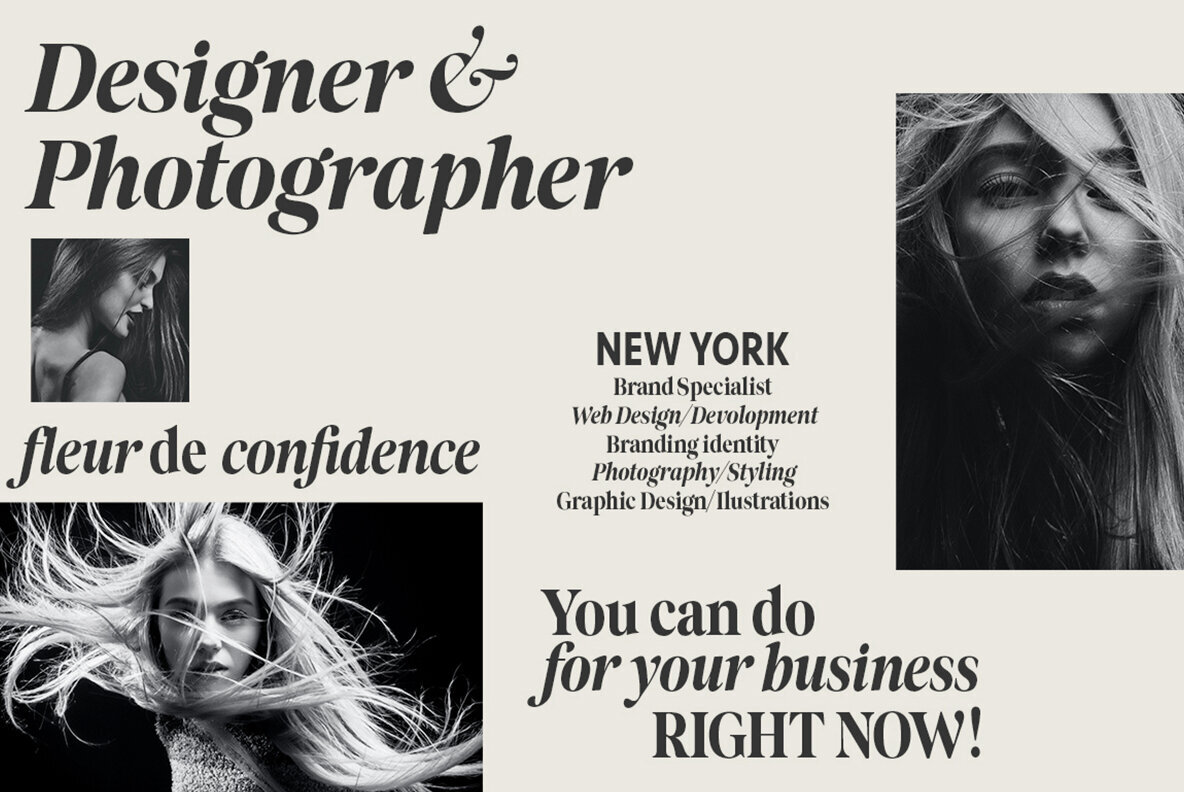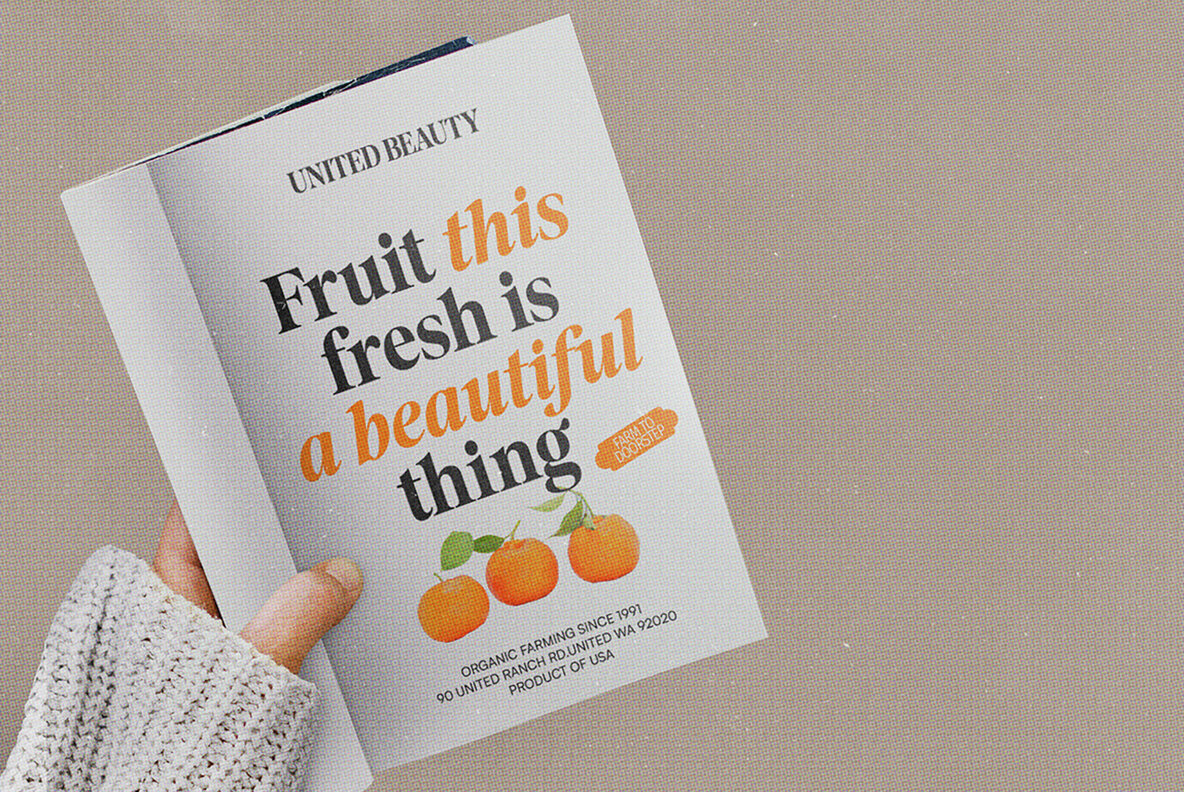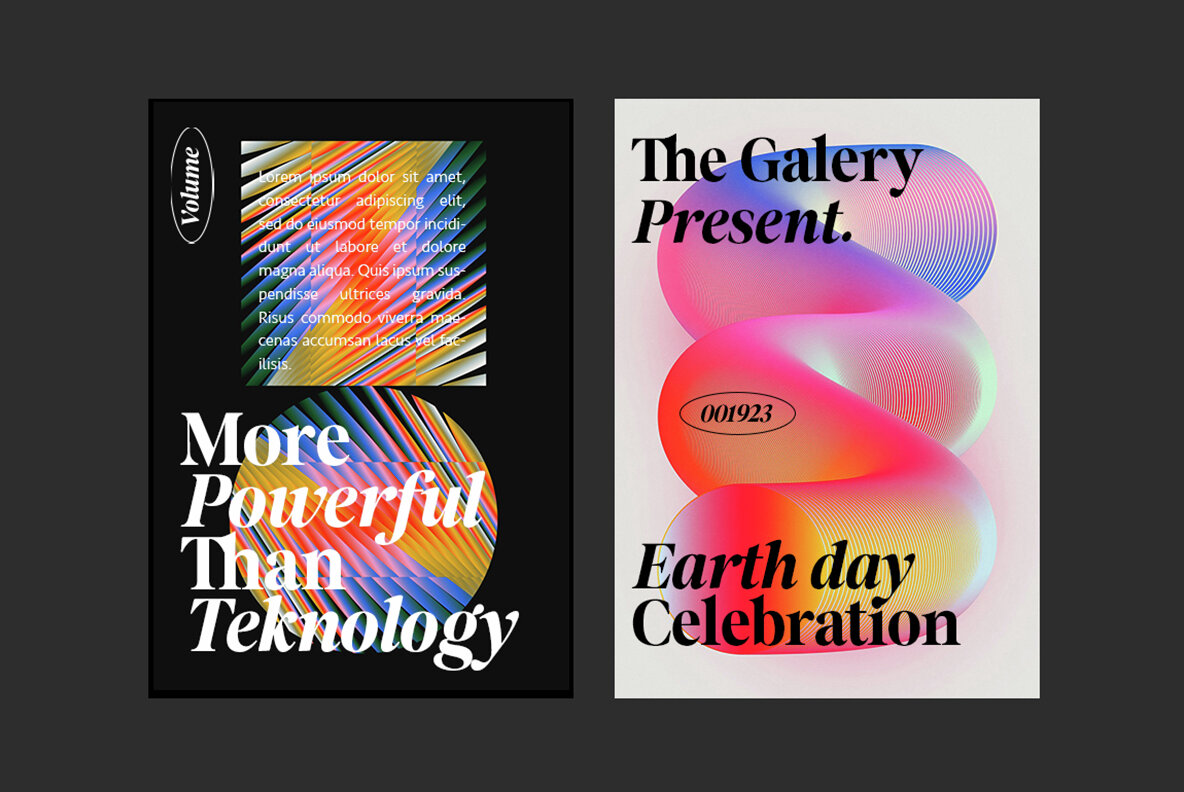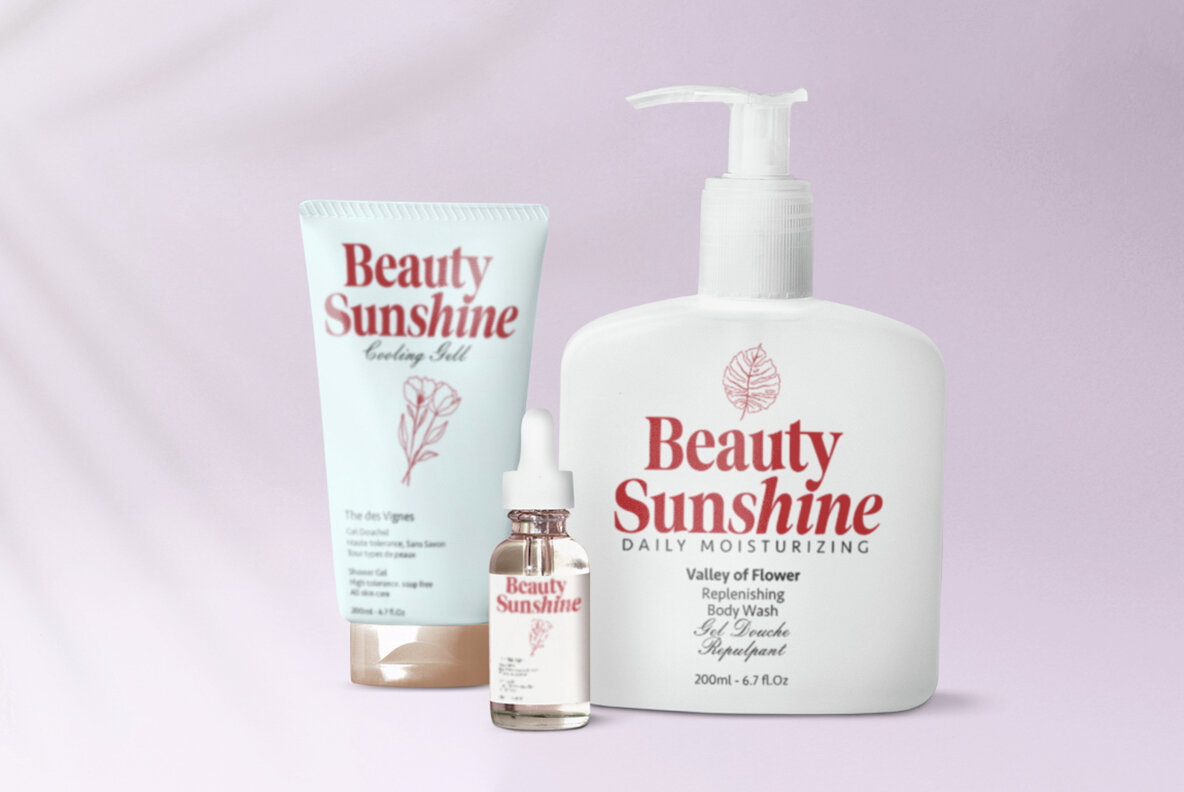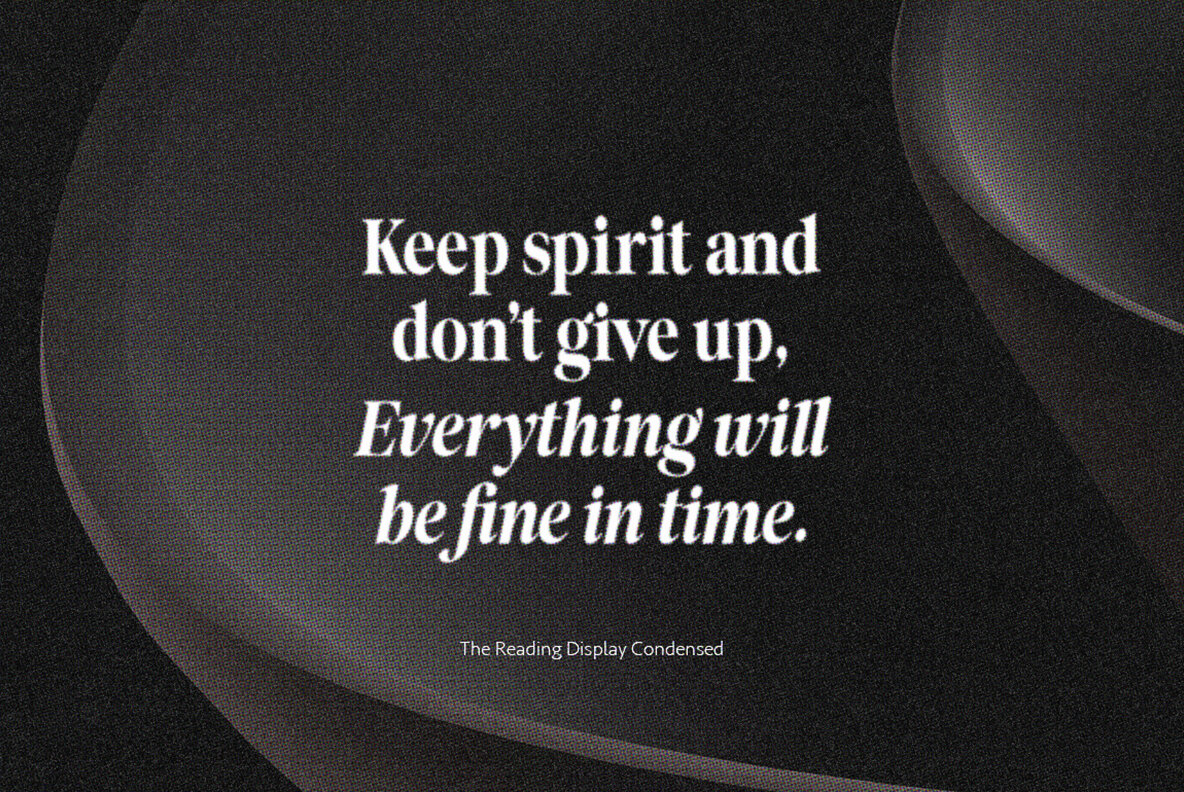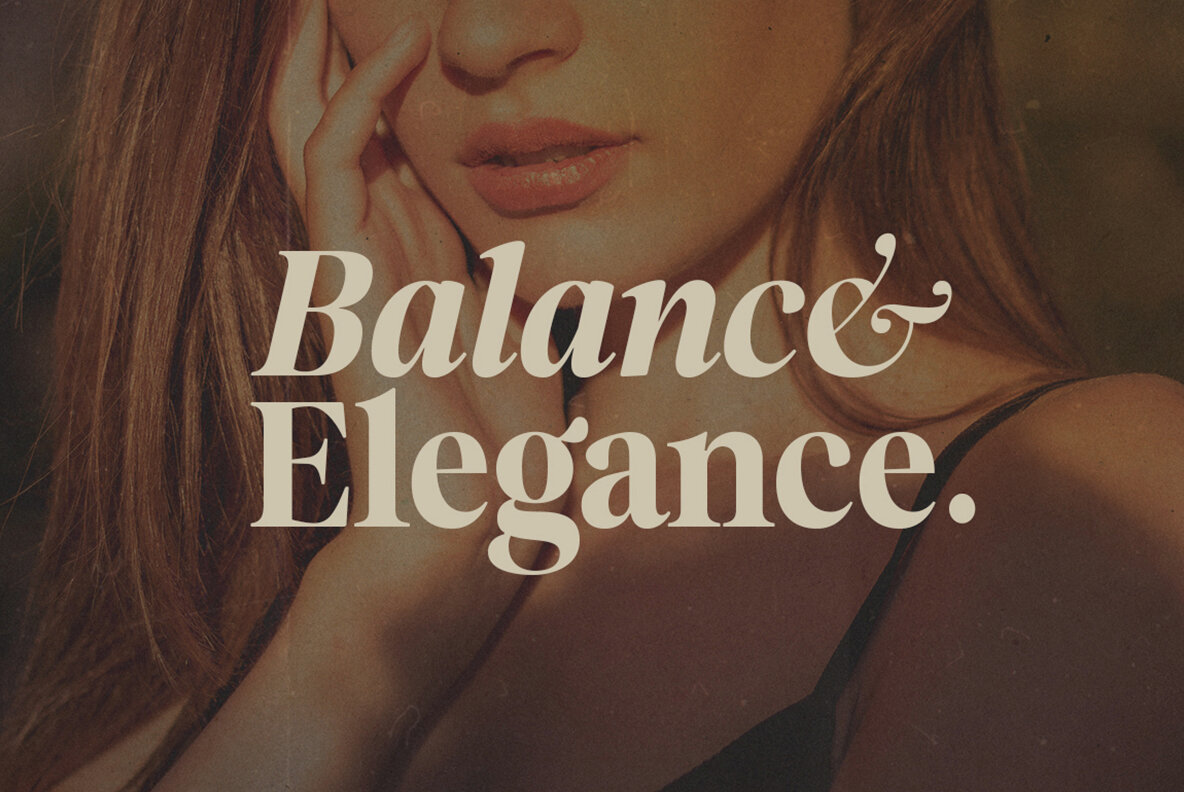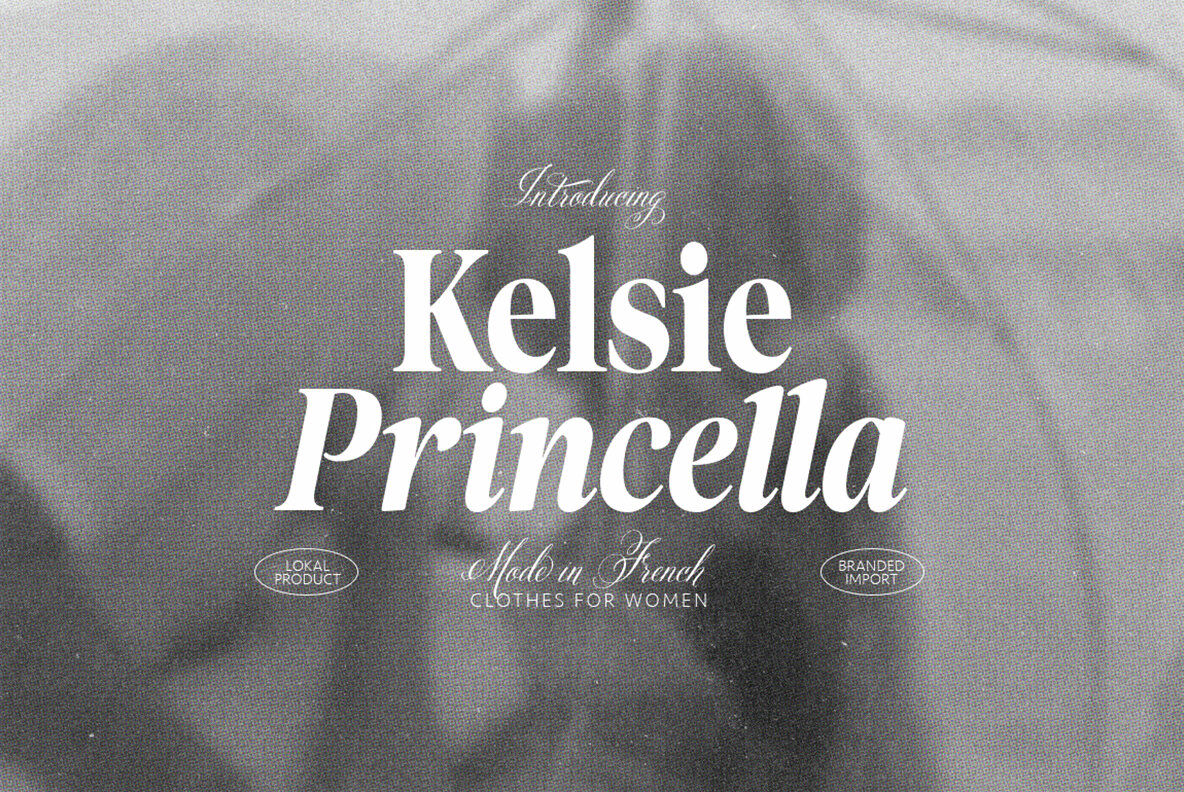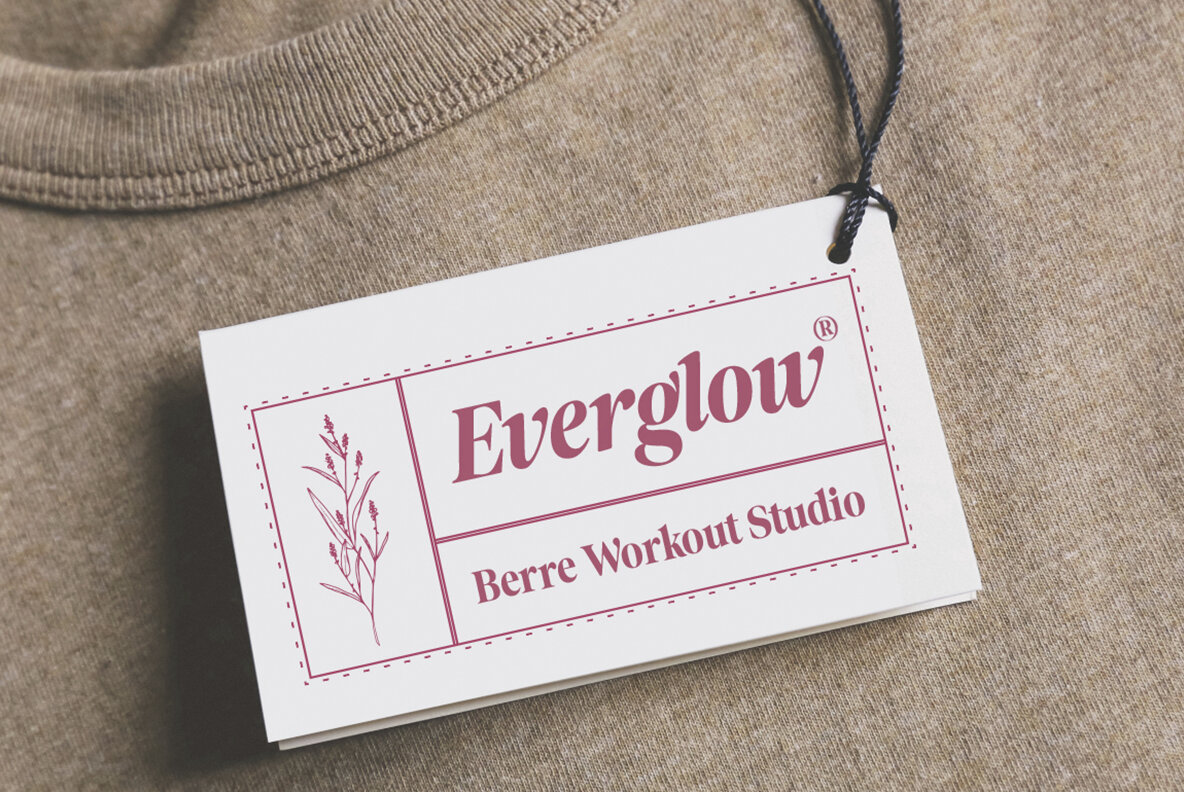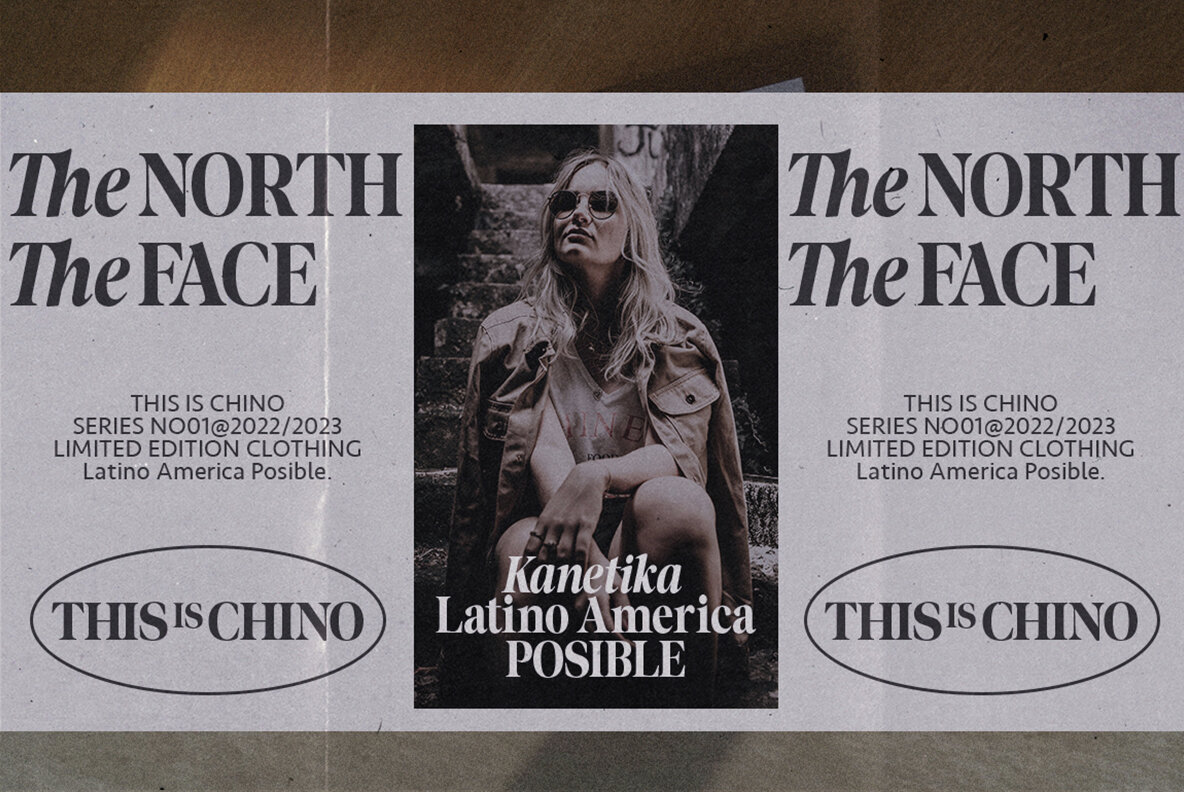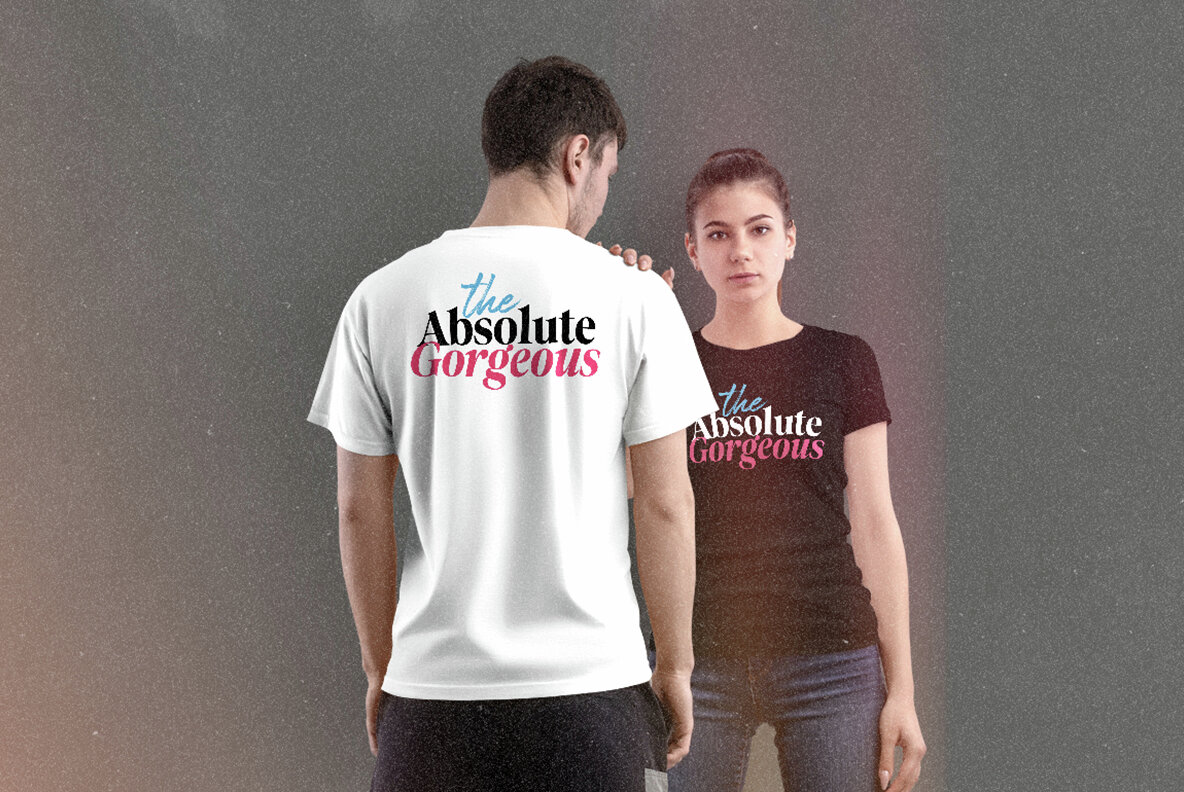
The Reading Display Font
The Reading Display font is a modern editorial serif that features clean and soft lines, coupled with tight curves for a refined and trendy appearance. The Reading Display offers two distinct styles: Regular Serif and Condensed Serif. Both styles are available with an italic version, making them ideal for diverse design projects.The Reading Display: Elegant Editorial Serif
Versatile Font Styles
Perfect for Various Applications